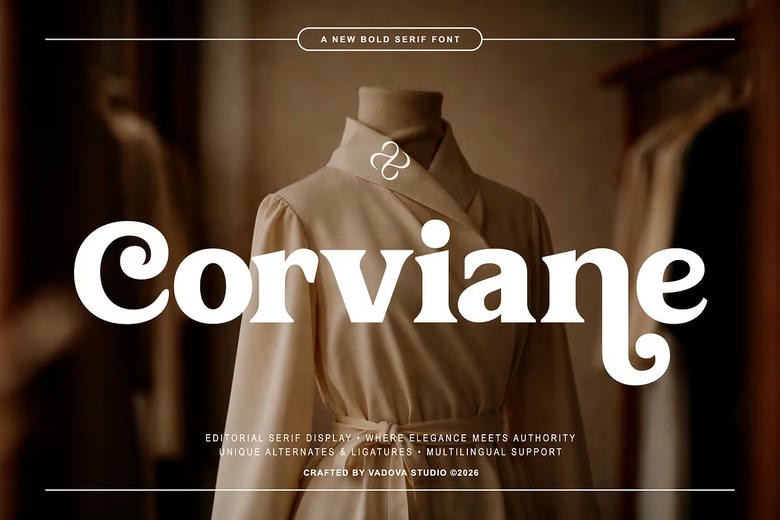
Corviane Font
Corviane is an aggressive editorial serif typeface in which grace collides with command. This display serif is pioneered in its robust vertical stress, sculptured curves and assured proportion to provide a presence that is impressive in its luxury branding and high impact editorial design. It has an elegant design that strikes a balance between weightiness and the careful detailing of boldness when used in statement headlines, fashion campaigns and high-end visual identities.
Corviane would be very useful in luxury branding, fashion labels, boutique identities, editorial layouts and high-end packaging. Its audacious but elegant architecture is particularly useful in magazine headlines, logos, advertising campaigns, and product display of the high-end production. The typeface is most effective in large format allowing its carved out details and assertive weight to be displayed fully.
Corviane Serif Font